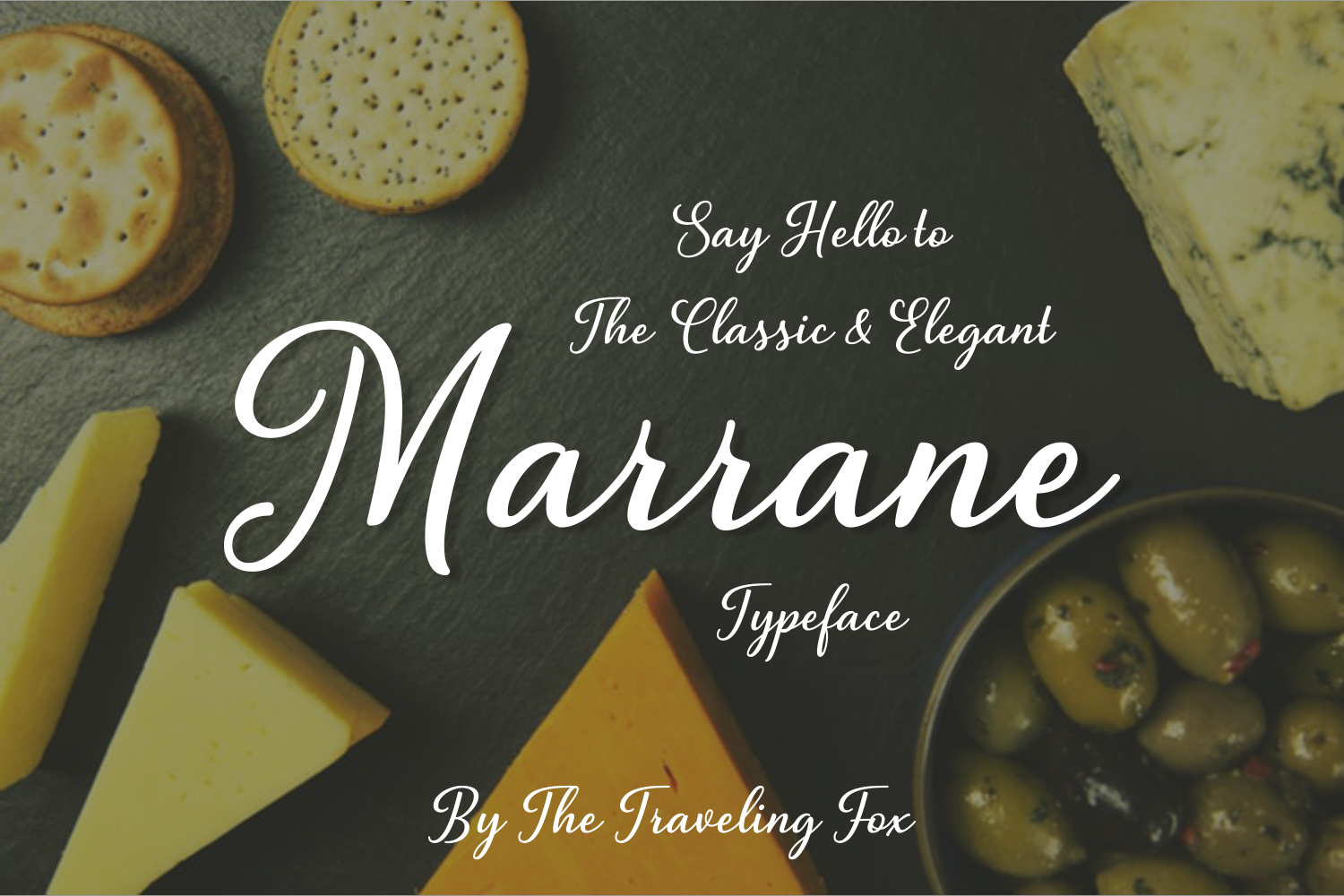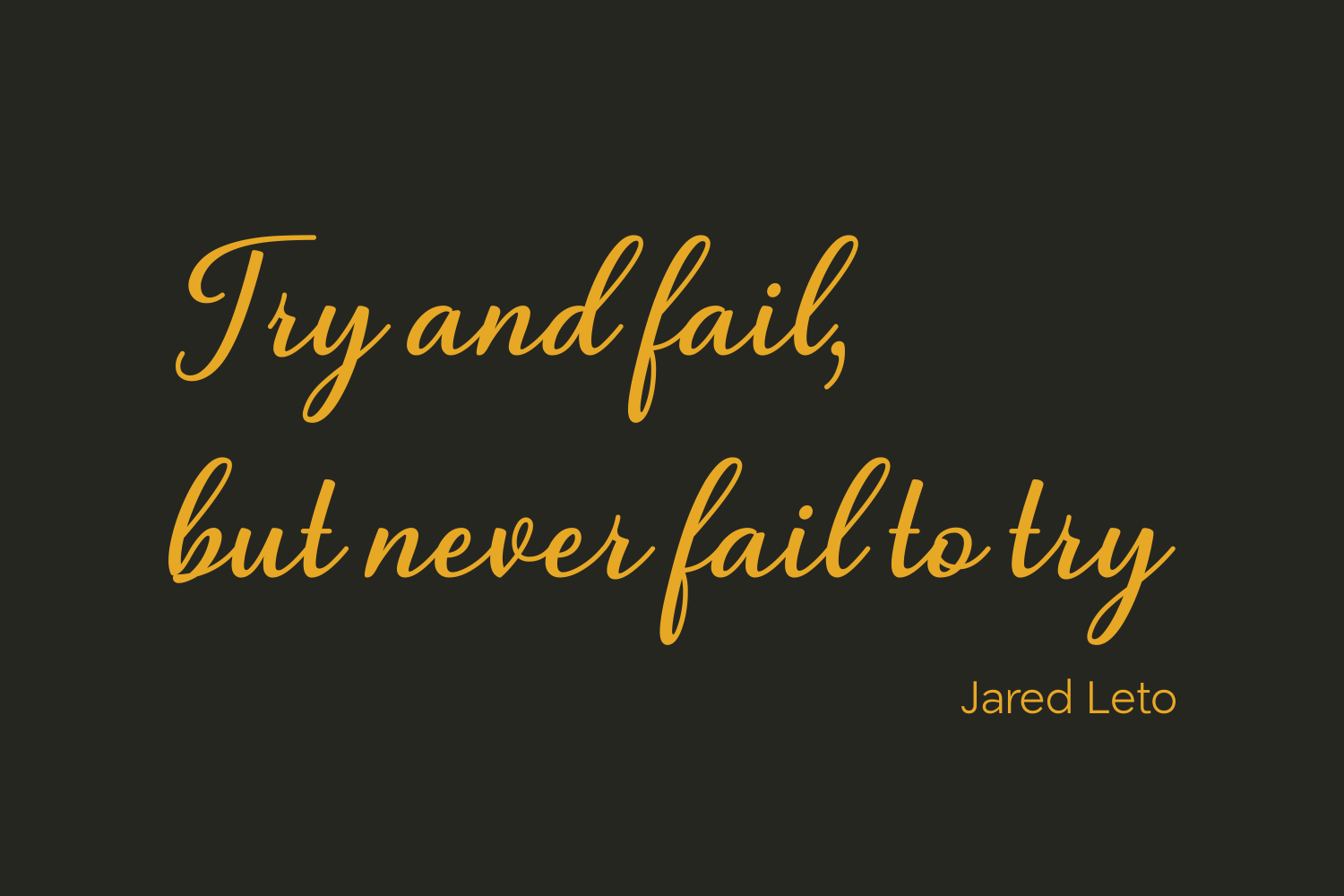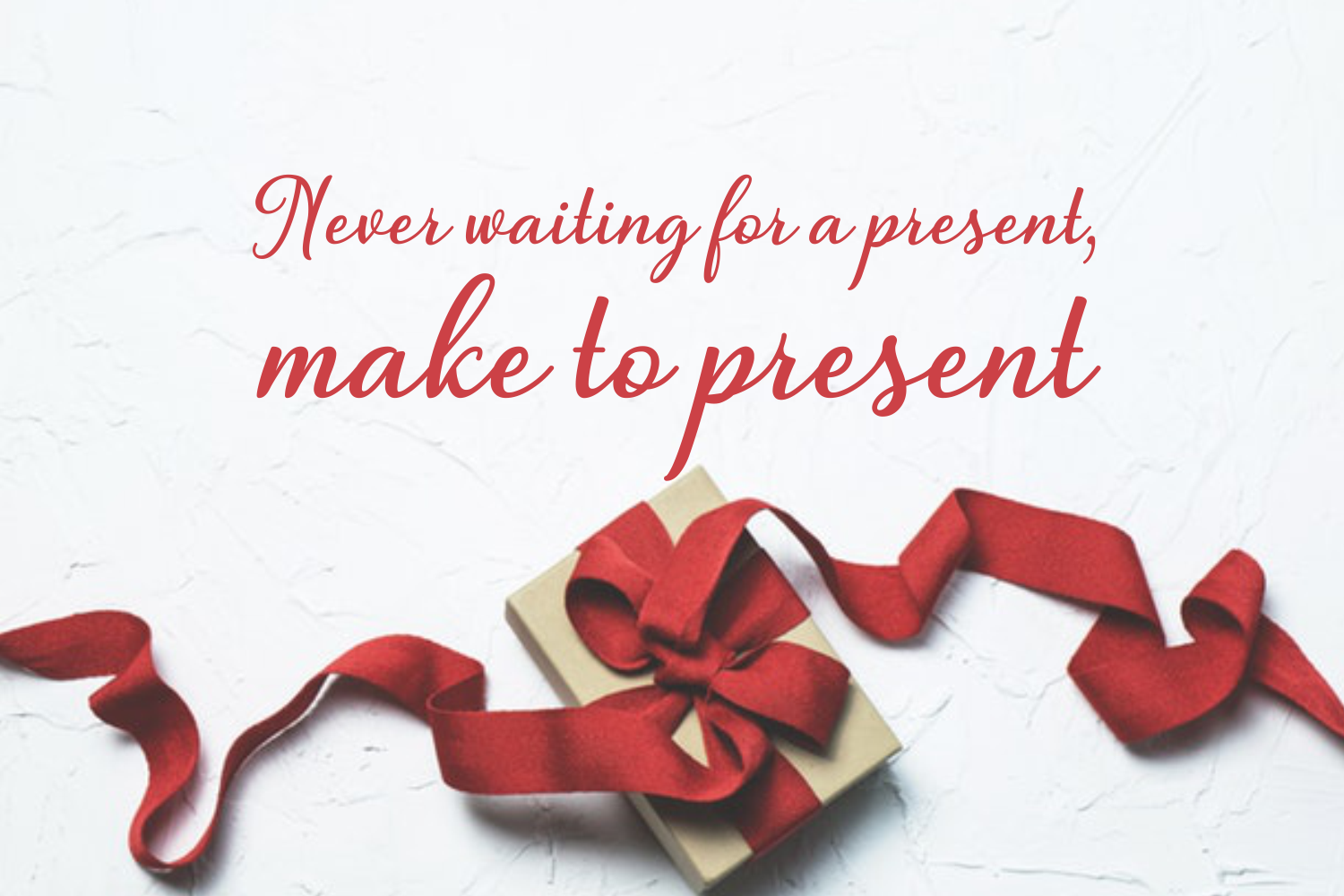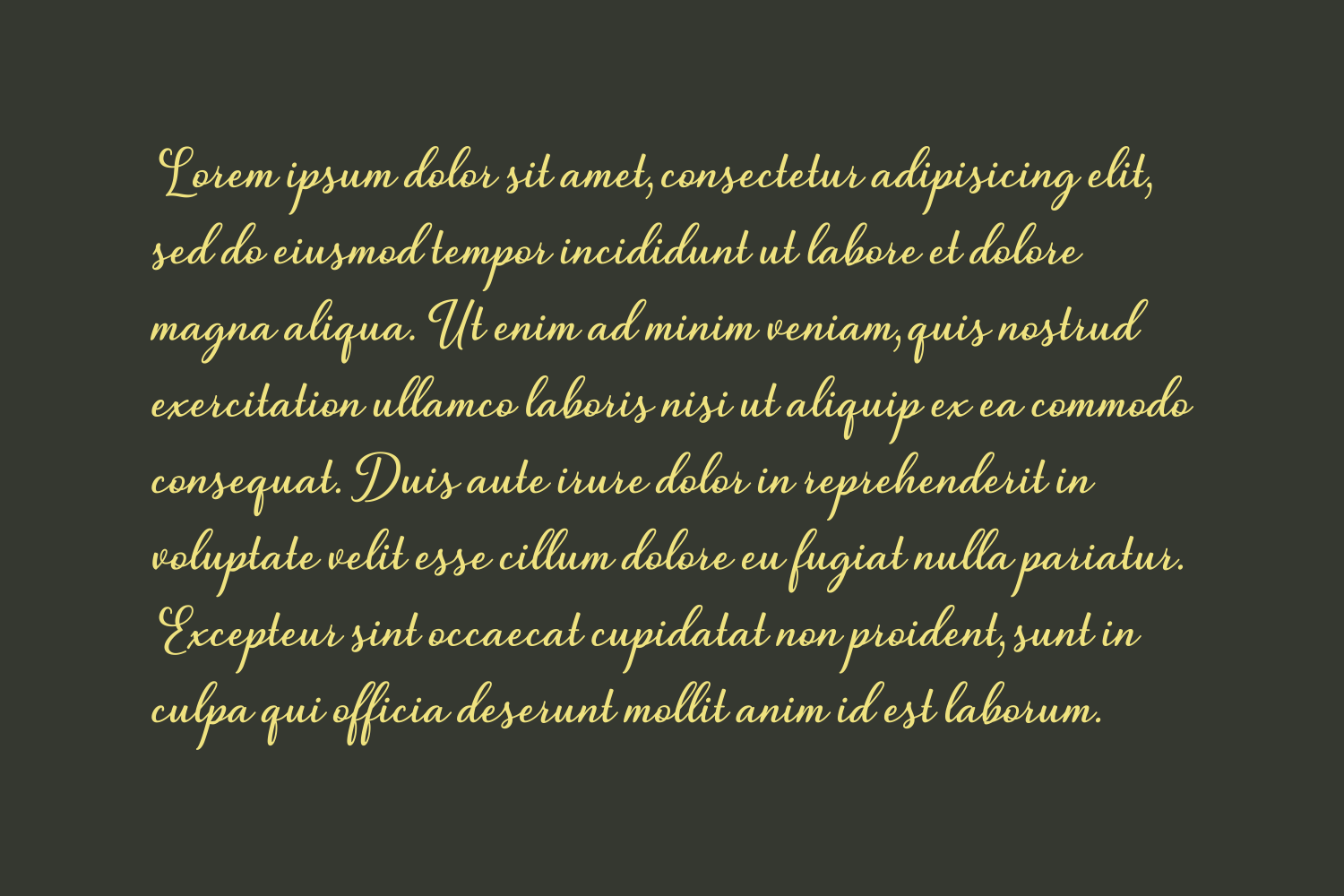
Marrane Font
About Marrane Font
Marrane is a modern yet classic convergence of style; this handwritten script is elegant enough to amplify the most special of your projects and designs.